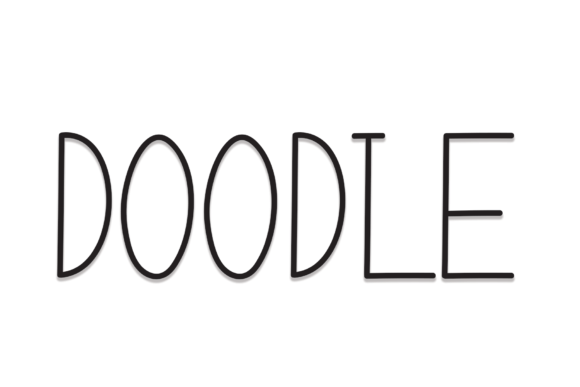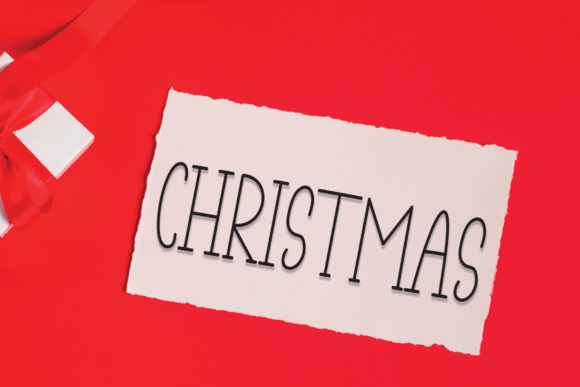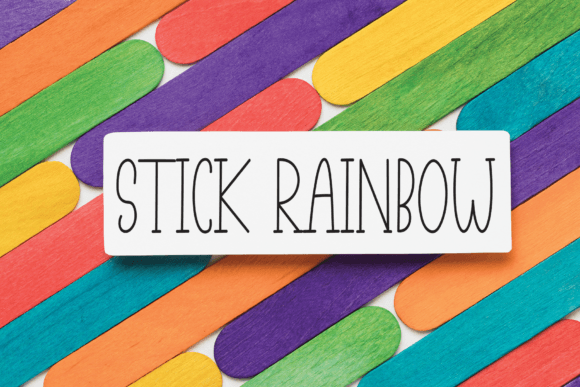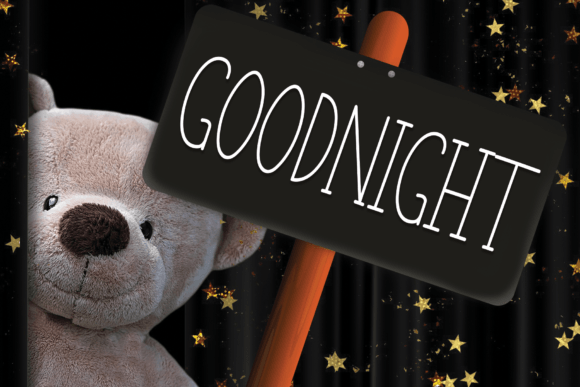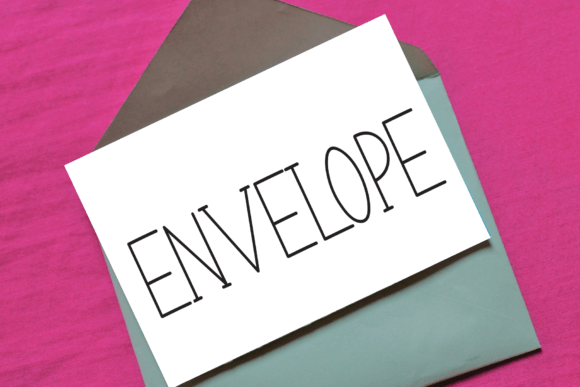
The Joy of Hand-Drawn Typography: Introducing Doodle Font
Have you ever sat down with a pencil and paper, letting your creativity flow as you sketch out a design concept? It’s that same feeling of freedom and playfulness that Doodle Font embodies. This charming serif font is perfect for bringing a personal touch to your projects, whether you’re crafting handmade cards, designing digital graphics, or creating engaging presentations.
Doodle Font is more than just a font – it’s a tool for adding warmth and character to your work. Its friendly, hand-drawn style makes it an excellent choice for designers looking to add a human touch to their designs. With Doodle Font, you can create projects that feel truly unique and special, setting them apart from more generic designs.
Whether you’re a seasoned designer or a crafting enthusiast, Doodle Font has the potential to become your go-to font for any occasion. Its versatility and charm make it an invaluable addition to any creative toolkit.
Doodle Font Key Features
- Unique Hand-Drawn Style: Doodle Font is a distinctive, hand-drawn typeface that adds a playful and whimsical touch to any design.
- Character Set: Includes a comprehensive set of uppercase and lowercase letters, numerals, and punctuation marks, making it suitable for a wide range of applications.
Doodle Font Review
Overall, I think the Doodle Font is a cute and quirky addition to any design project. ✨ It’s perfect for creating a playful, hand-drawn feel that’s sure to engage your audience. I’ve used it in a few designs and the results are always visually appealing.
- ✨ Easy to customize: The Doodle Font is highly editable, allowing you to tweak the lines, shapes, and texture to fit your design needs.
- ✨ Versatile: This font can be used for a wide range of projects, from children’s books to advertising campaigns.
- ✨ Friendly: The font’s hand-drawn feel makes it perfect for creating a warm and approachable brand identity.
- ⚠️ Limited legibility: Depending on the size and context, the Doodle Font can be difficult to read, especially for larger blocks of text.
- ⚠️ Limited font family: The Doodle Font is a single font style, which can limit its versatility in certain design situations.
Overall, I think the Doodle Font is a great addition to any design arsenal, but it’s essential to use it judiciously and in the right context. With its playful, hand-drawn feel, it’s perfect for projects that need a little extra personality.
Doodle Font: A Practical Application Guide
Tips for Getting the Most Out of Doodle Font
Use Doodle Font to add a playful and creative touch to your designs. Experiment with different font sizes, colors, and styles to create a unique look. You can also use Doodle Font in combination with other design elements, such as graphics and images, to create a visually appealing design.
Doodle Font is commonly used in creative and playful designs, such as:
Alternatives to Doodle Font for Designers
Doodle Font is a popular font known for its whimsical and playful style, but there are other alternatives that designers can consider. Here are a few options:
Pacifico is a beautiful, cursive script font that evokes a sense of relaxation and calmness. It’s perfect for use in wedding invitations, greeting cards, and other materials where a soft, romantic feel is desired. Compared to Doodle Font, Pacifico is more elegant and refined, making it suitable for formal events and occasions.
Great Vibes is a fun, hand-drawn font that’s perfect for creating a lively and energetic atmosphere. It’s great for use in social media graphics, advertisements, and other materials where a bold and playful feel is desired. Compared to Doodle Font, Great Vibes is more modern and edgy, making it suitable for younger audiences and trendy designs.